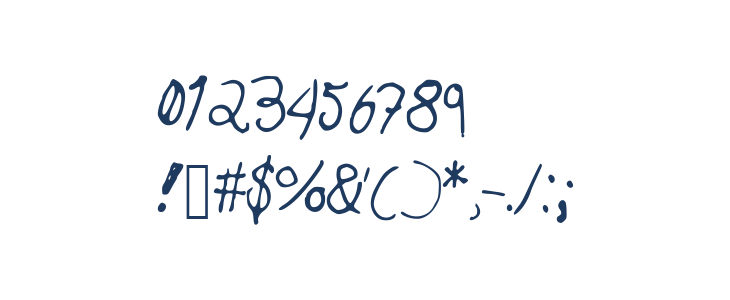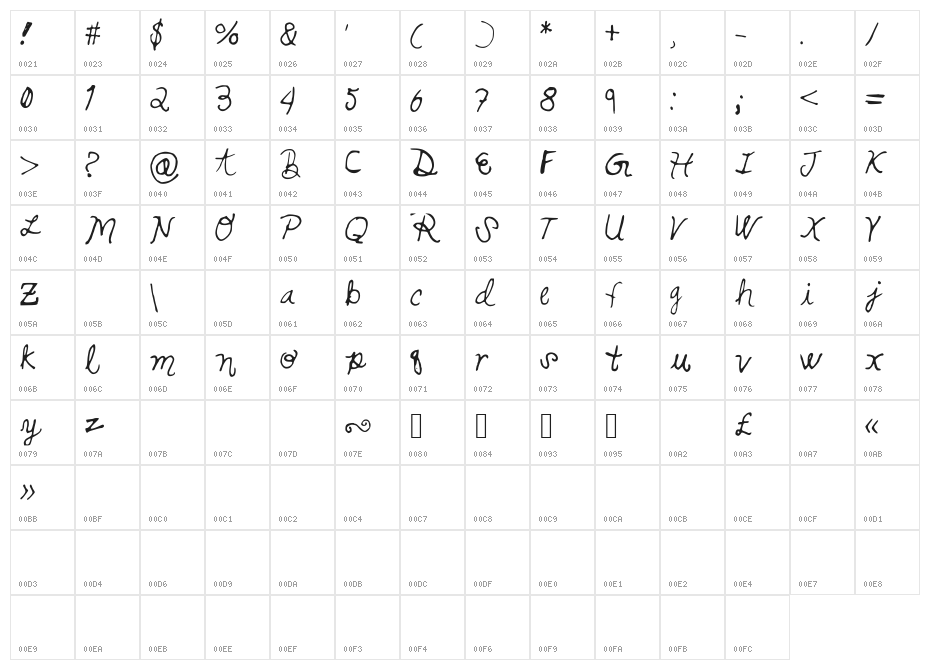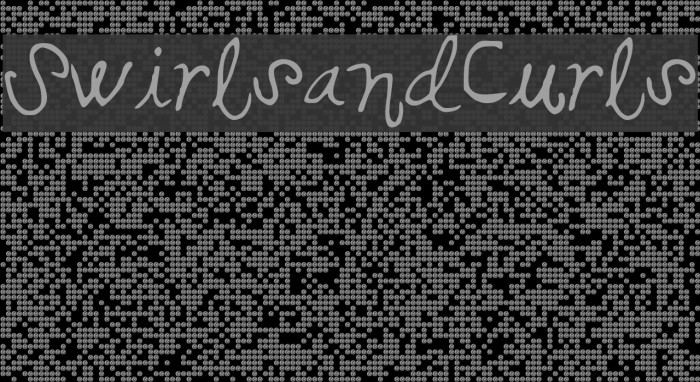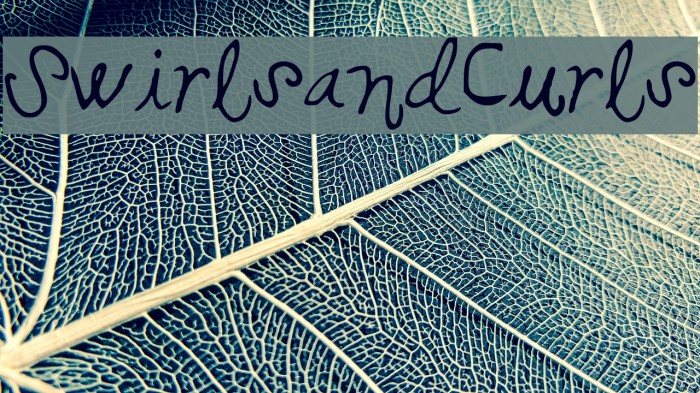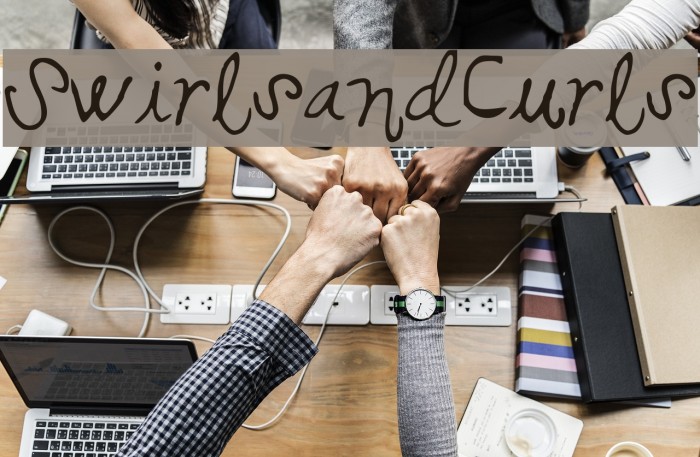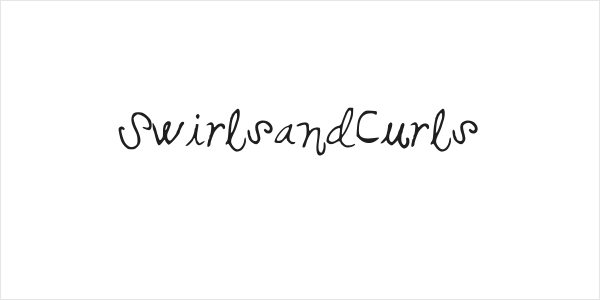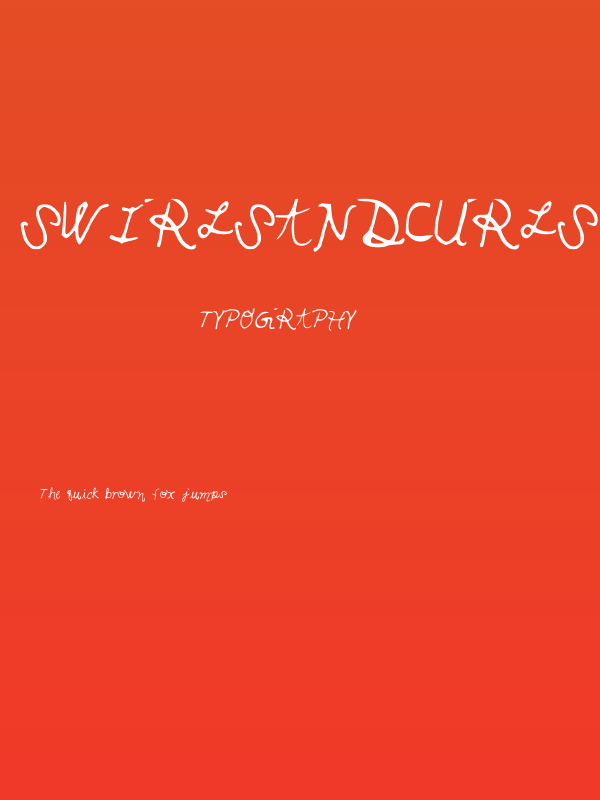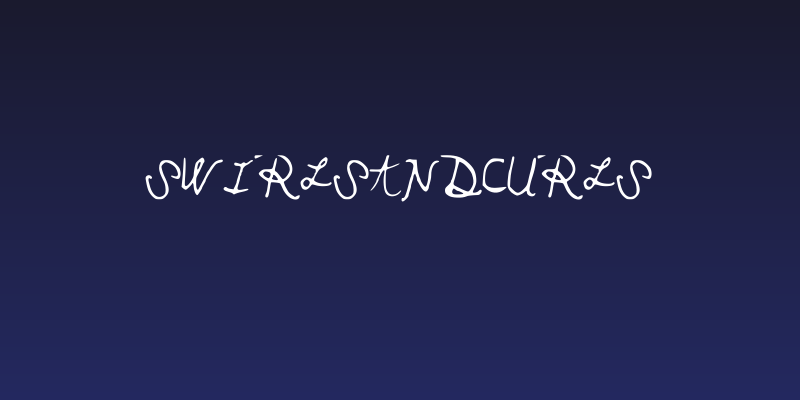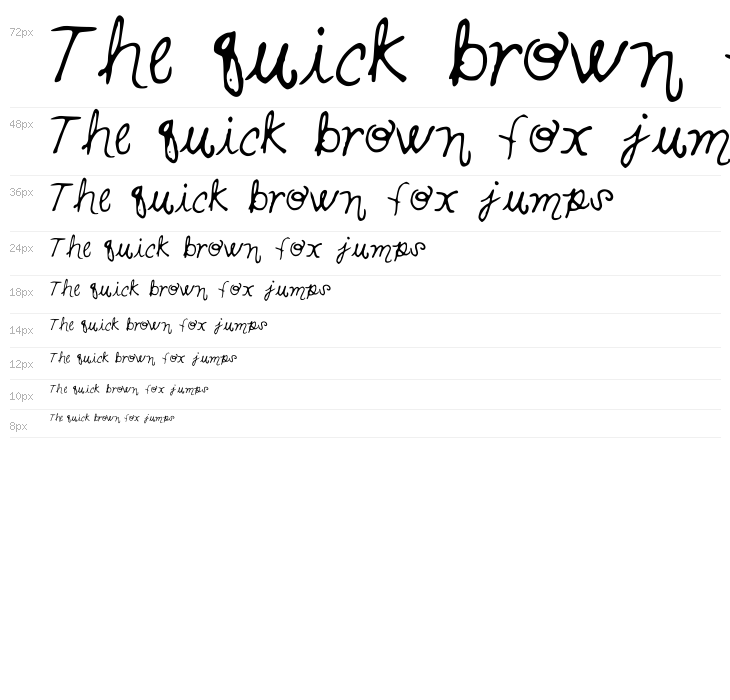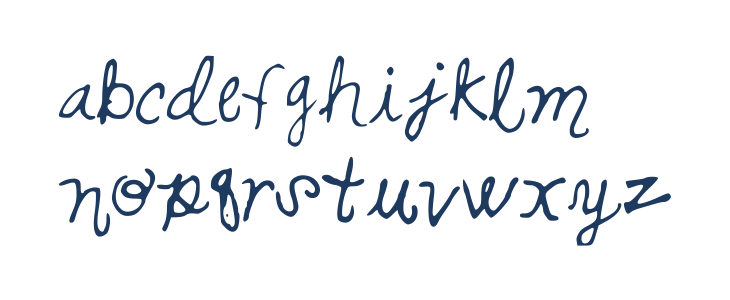
SwirlsandCurls Font
SwirlsandCurls Description
This font exudes a whimsical and playful charm, characterized by its flowing, cursive style with a touch of elegance. The letters are interconnected with smooth, swirling strokes that give it a handwritten feel. The uppercase letters maintain a consistent height, while the lowercase letters exhibit a slight variation in size, adding to its dynamic appearance. The numerals are distinct and easy to read, maintaining the same fluidity as the alphabet. Special characters are creatively designed, complementing the overall aesthetic. This font is perfect for projects that require a personal, artistic touch.